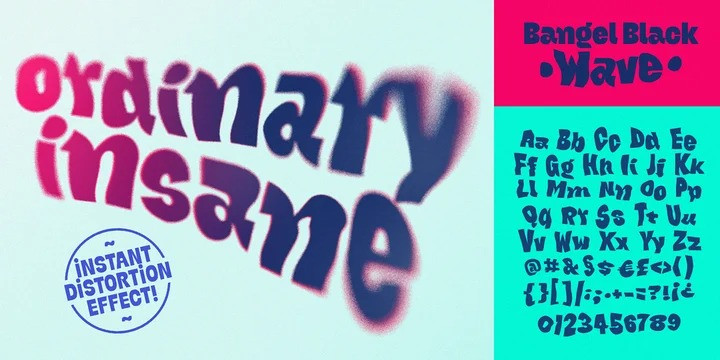
Bangel Display Font
It’s a sans serif display font, which contains 4 styles and It features unique and modern sans serif. The eye-catching letter design is quite geometric, but also pretty expressive and fun.
Bangel is a pretty good choice for logotypes, branding, headlines and posters. This typeface is also a powerful option for use on social media, web & UI design.